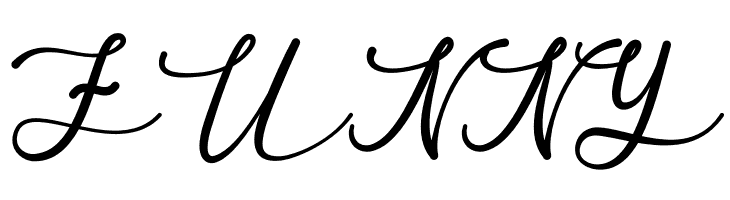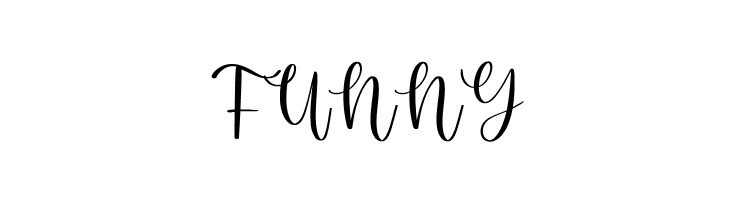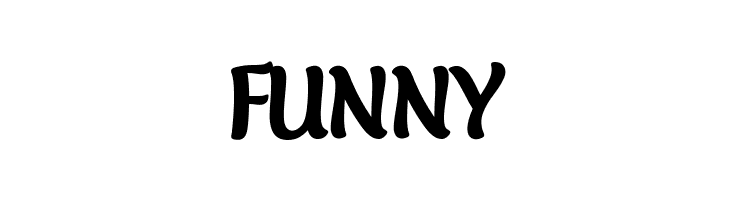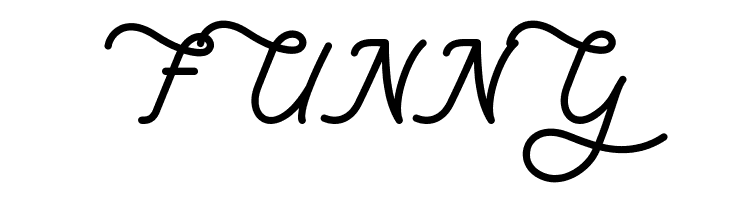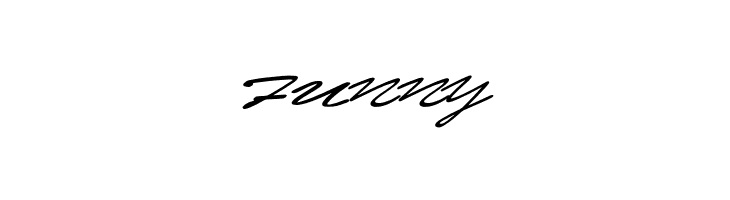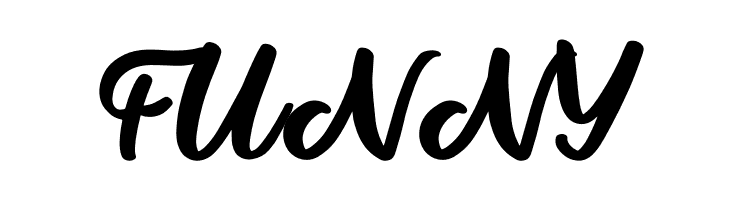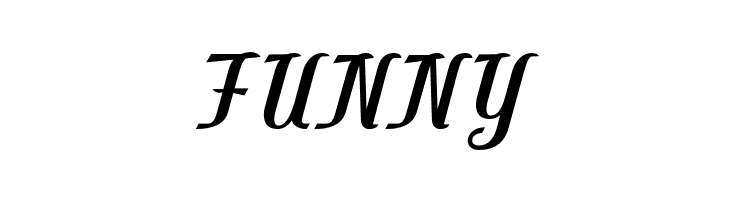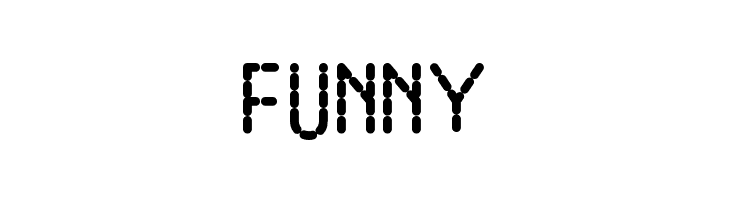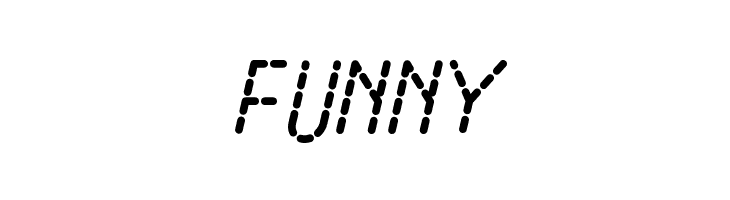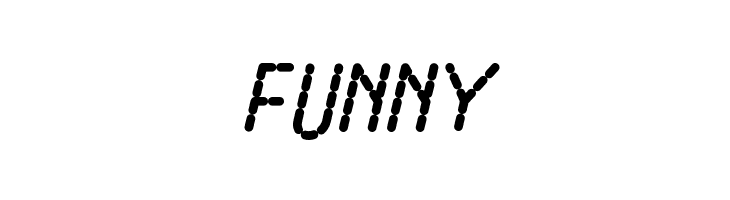
A modern, italicized font with a sleek and dynamic style.
A bold, expressive handwritten font with brush-like strokes and dynamic flow.
A sophisticated, cursive script font with bold, flowing strokes.
A dynamic and elegant script font with smooth, flowing curves and a slightly slanted style.
A modern, elegant script font with flowing curves and unique flourishes.
A playful, hand-drawn font with smooth curves and a whimsical style.
A bold, medieval-inspired font with sharp serifs and flowing curves.
A modern, rounded font with a playful and minimalist design.
A modern, rounded font with a playful and clean design.
A modern, dashed font with rounded edges and consistent spacing.
A sleek, modern italic font with bold, smooth curves.
A bold, italicized font with a unique dashed style for a modern, playful look.
A modern, dashed font with rounded edges and uniform stroke width.
A playful, rounded font with smooth curves and uniform stroke width.
A bold, dashed font with a playful and modern style.
A bold, italicized font with rounded, smooth curves and a modern, playful style.
A playful, dotted italic font with bold, rounded characters.
A sleek, modern italic font with smooth, continuous strokes.
A modern, italicized dashed font with a playful and dynamic style.
A sleek, modern font with thin, uniform strokes and a geometric influence.
A modern, dashed-line font with a playful and cohesive design.
A sleek, modern, and lightly italicized font with smooth, rounded edges.
A modern, italicized font with a unique dashed line style.
A sleek, modern font with thin, elongated strokes and a geometric structure.
A modern, dashed line font with a playful and stylish appearance.
A sleek, modern, and elegant thin italic font with elongated letterforms.
A modern, dashed line italic font with a sleek and playful style.
An elegant, flowing script font with smooth, cursive letterforms.
A flowing, cursive font with elegant loops and classic calligraphy style.
A jagged, rebellious font with sharp, irregular strokes for bold, edgy designs.
A cursive, handwritten font with elegant, flowing strokes and a dynamic style.
A playful, handwritten font with thin, irregular strokes and a casual style.
A bold, playful handwritten font with a casual and friendly style.
A playful, handwritten font with tall, narrow letters and a casual style.